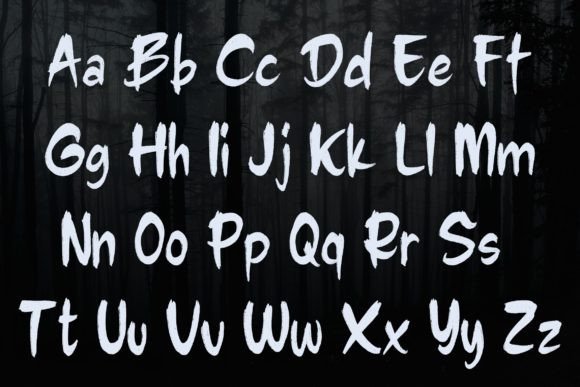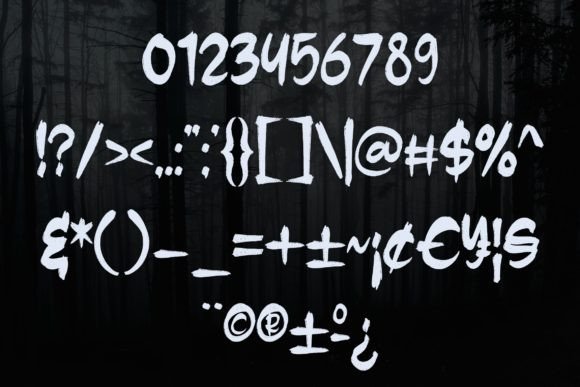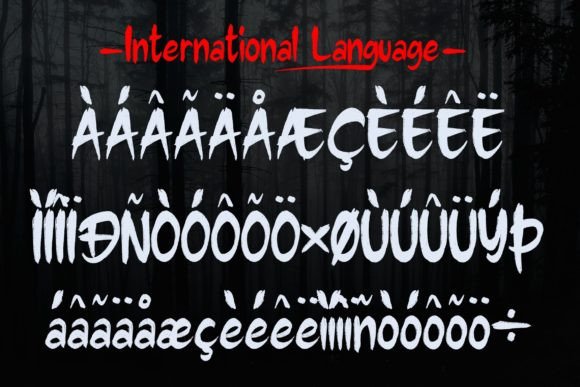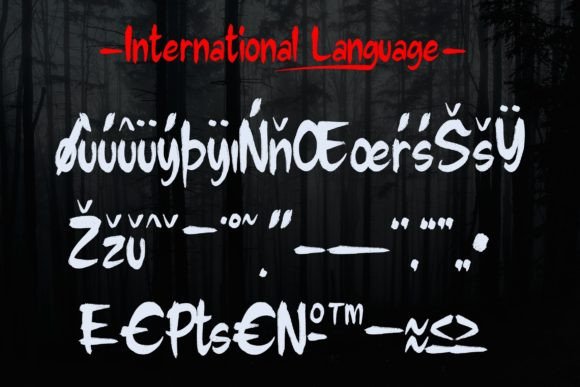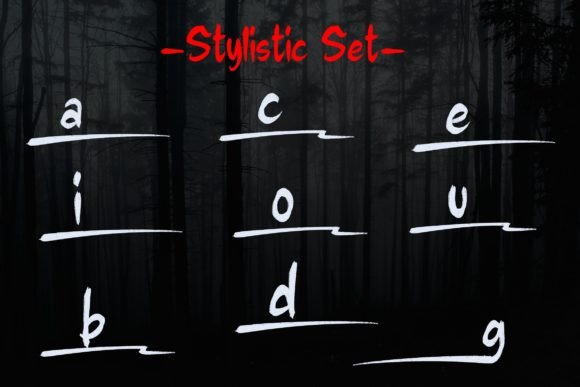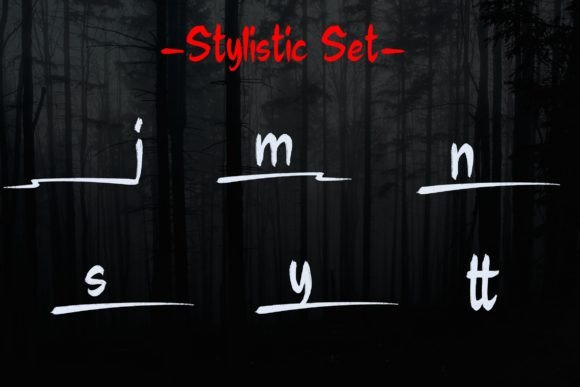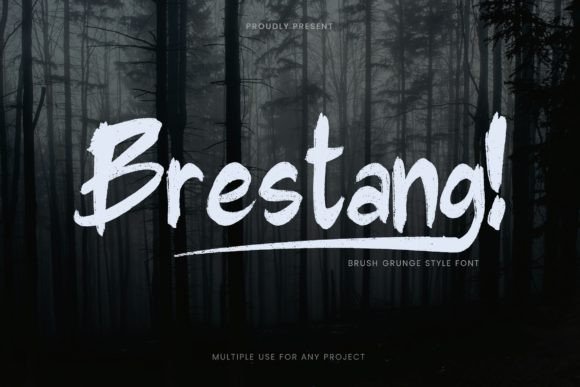
Brestang Font: The Ultimate Choice for Spooky and Thrilling Projects
Are you looking for a font that can add a touch of horror and thrill to your creative projects? Look no further than the Brestang Font, a scary brush font that is perfect for a wide range of applications, from games and Halloween-themed designs to horror movies and haunted house attractions.
What is Brestang Font?
Brestang Font is a unique and terrifying font that is designed to evoke a sense of fear and unease. With its bold, brush-stroked letters and creepy aesthetic, this font is sure to make your project stand out and leave a lasting impression on your audience.
Features of Brestang Font
- Scary and Spooky Design: Brestang Font features a bold, brush-stroked design that is perfect for creating spooky and thrilling projects.
- Perfect for Horror and Thriller Themes: Whether you’re working on a horror movie, a haunted house attraction, or a Halloween-themed design, Brestang Font is the perfect choice.
- Versatile and Flexible: Brestang Font can be used for a wide range of creative projects, from games and movies to posters and flyers.
Uses of Brestang Font
Brestang Font is perfect for a wide range of creative projects, including:
- Games: Use Brestang Font to create spooky and thrilling game titles, menus, and interfaces.
- Halloween and Horror Themes: Brestang Font is perfect for creating Halloween-themed designs, horror movie posters, and haunted house attractions.
- Thriller and Mystery Projects: Use Brestang Font to create suspenseful and thrilling project titles, posters, and marketing materials.
- Gothic and Mystical Designs: Brestang Font is perfect for creating gothic and mystical designs, including logos, posters, and flyers.
Benefits of Using Brestang Font
By using Brestang Font, designers and crafters can benefit from:
- Unique and Eye-Catching Designs: Brestang Font allows designers to create unique and eye-catching designs that will stand out from the crowd.
- Increased Creativity: With Brestang Font, designers can add a touch of horror and thrill to their projects, increasing creativity and imagination.
- Professional and High-Quality Results: Brestang Font is designed to produce high-quality results, making it perfect for professional designers and crafters.
Brestang Font is a unique and terrifying font that is perfect for designers and crafters looking to add a touch of horror and thrill to their creative projects. With its bold, brush-stroked design and creepy aesthetic, Brestang Font is sure to make your project stand out and leave a lasting impression on your audience. Whether you’re working on a game, a horror movie, or a Halloween-themed design, Brestang Font is the ultimate choice.